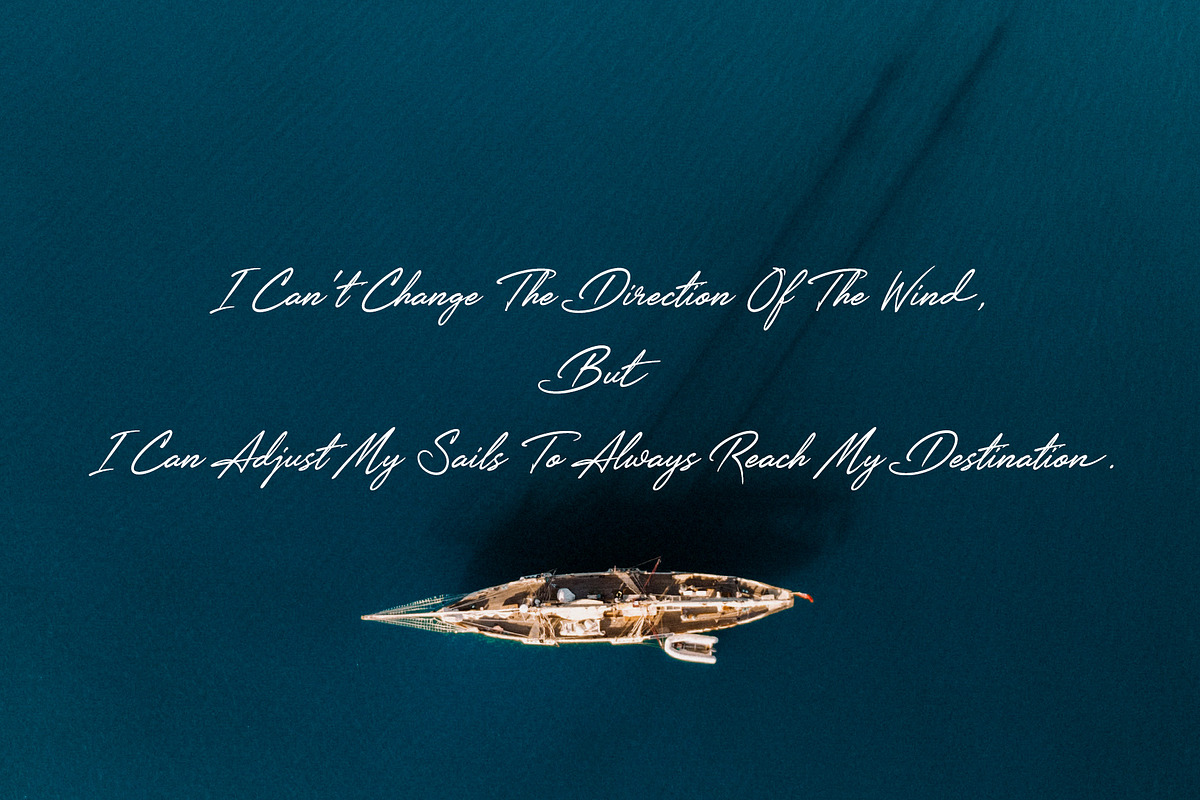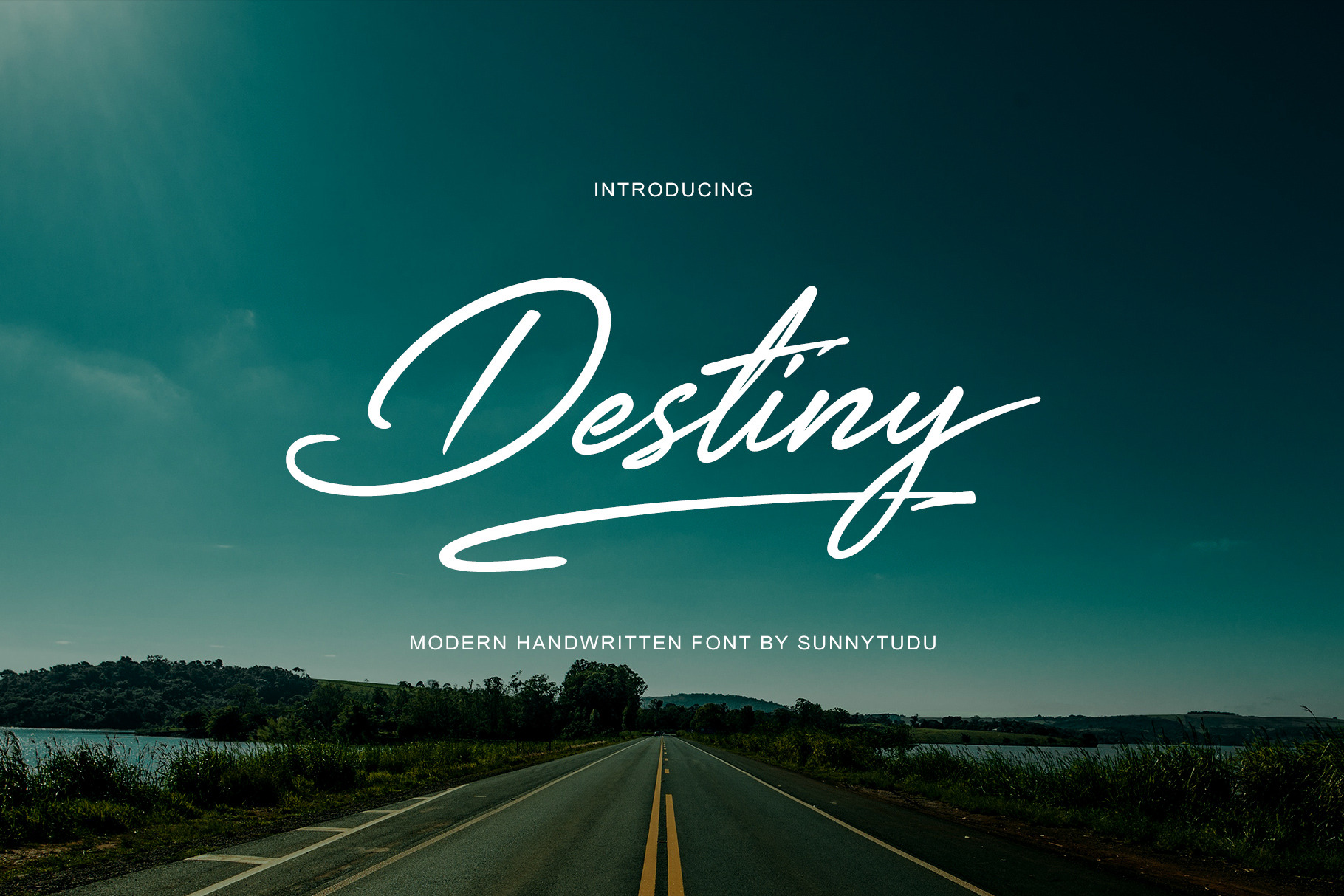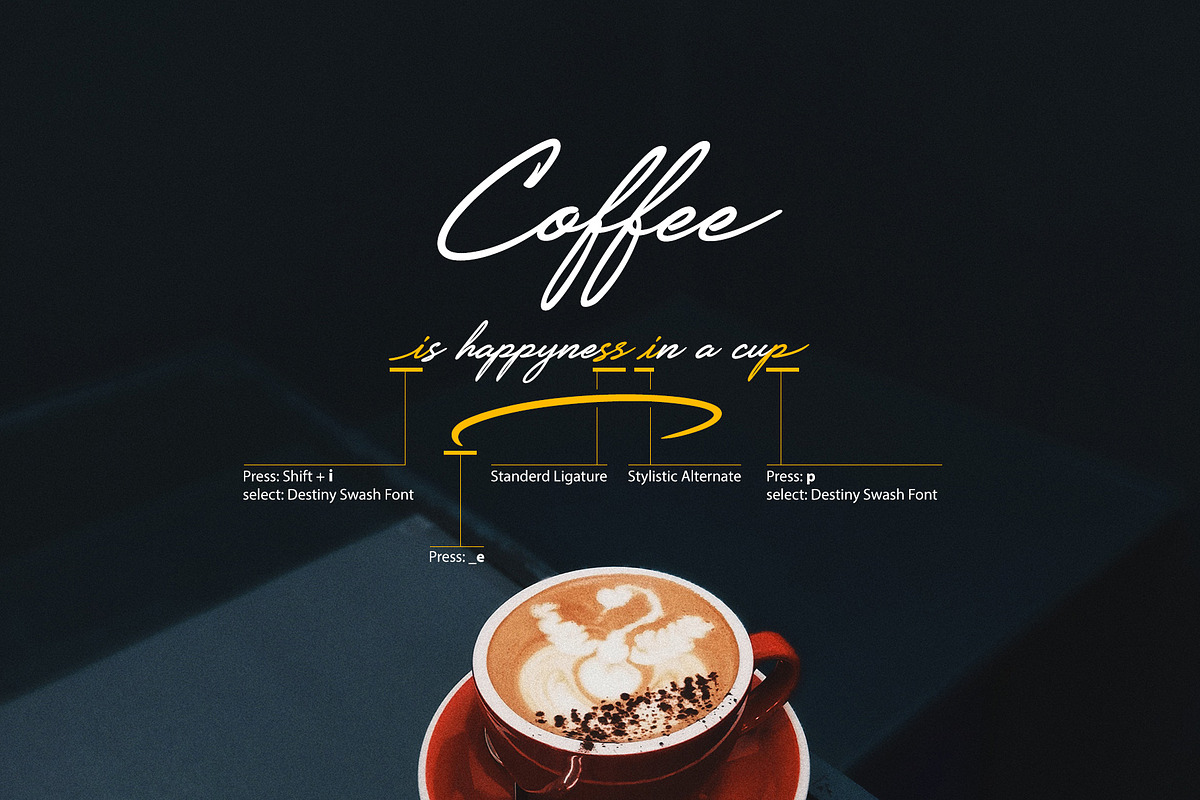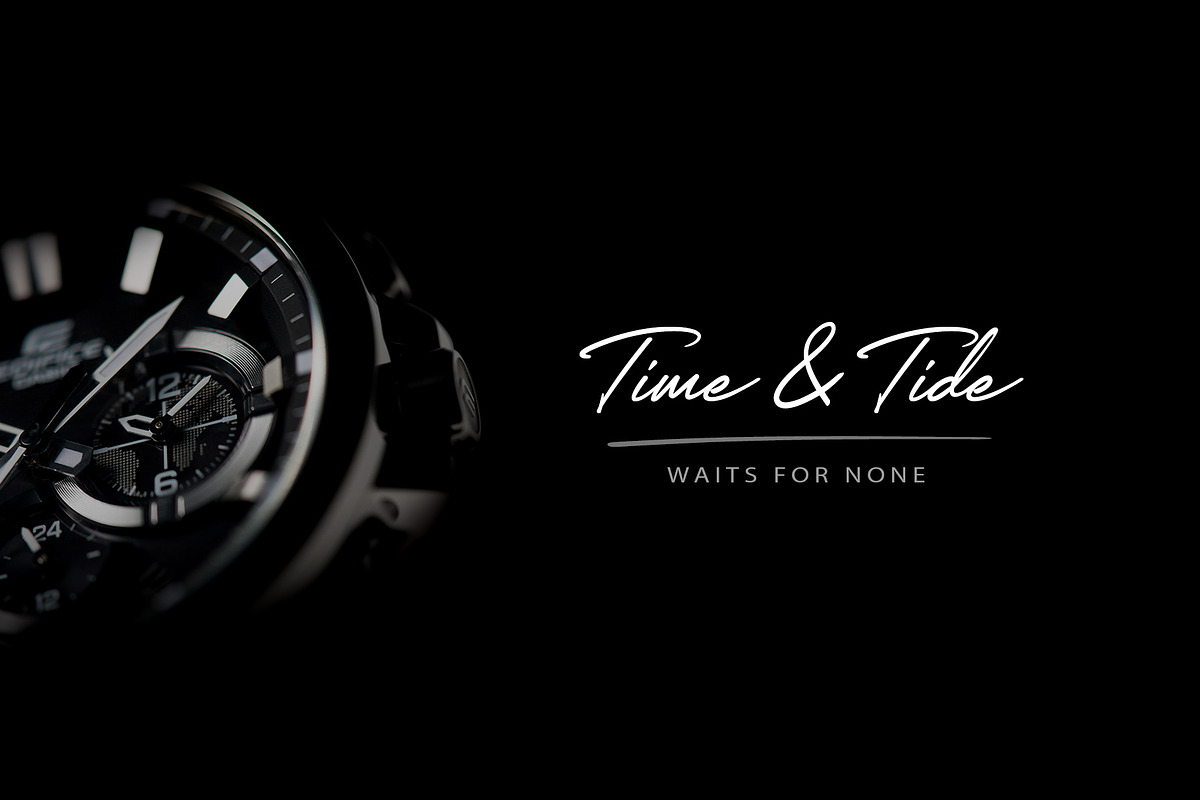
Destiny Handwritten Font
Destiny is a nice handwritten Font. It gives a complete authentic feel on your text.
Total 267 glyphs available including alphabets, numerals, punctuation, ligature, alternate, swash and international characters.
- Standers Letters
- beginning swash
- Ending swash
- Underline strokes
- Multilingual Letters